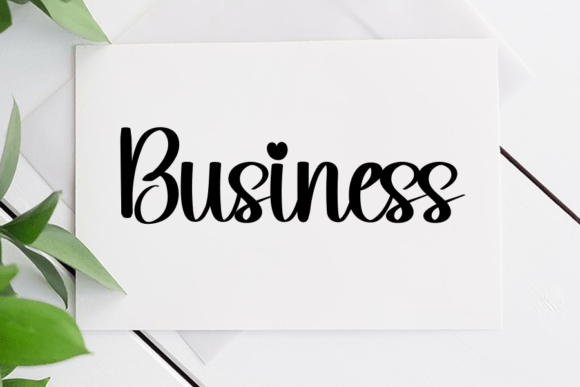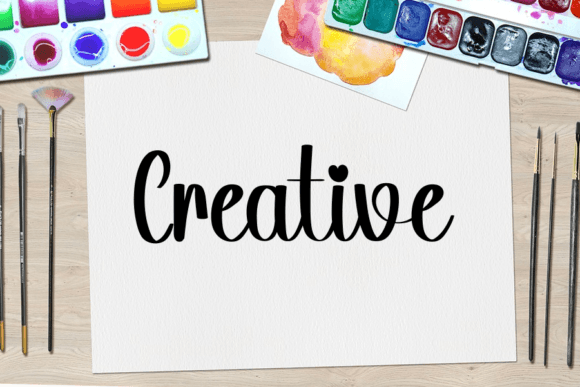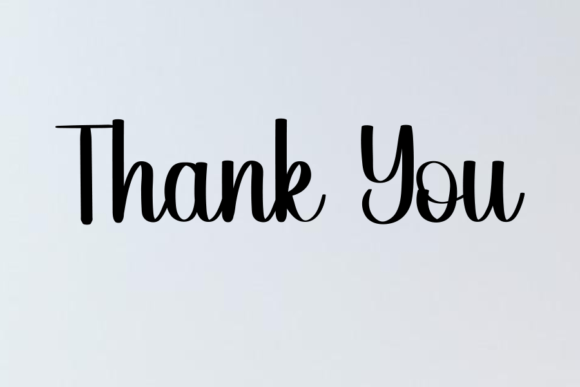
Smile Font
About the Smile Font
Welcome to the world of Smile Font, a typeface that will inspire your next great project. Smile is a simple handwritten font. This versatile font has a wide spectrum of applications ranging from greeting cards to headlines and is guaranteed to add a simple and natural feel to your next project!